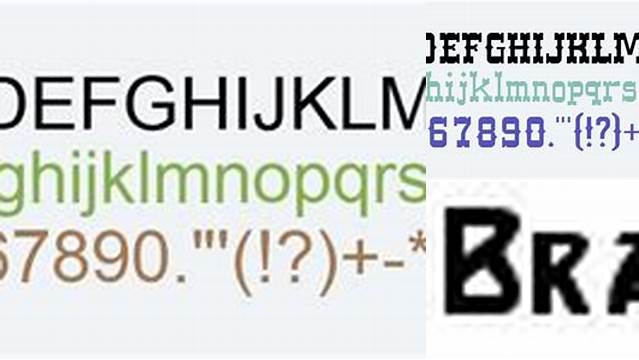
Arial Font: Free Download, Normal, Western, Panose & Default
Hey guys! Are you on the hunt for the perfect font for your next project? Look no further! Today, we're diving deep into the world of Arial, a classic and versatile typeface that's been a staple in design for decades. We'll cover everything from where to find a free download to understanding its technical aspects like Panose numbers. So, buckle up and let's get started!
Arial Font: A Deep Dive
Before we jump into the specifics of downloading and using Arial, let's take a moment to appreciate its history and characteristics. Arial is a sans-serif typeface that's known for its clean lines and excellent readability. It's often used in body text, headlines, and even in digital interfaces. Its versatility makes it a go-to choice for designers and typographers alike. Understanding its background will help you appreciate why it's such a popular choice and how to best utilize it in your projects. So, let's explore the key aspects of Arial font.
Arial Normal Font: The Classic Choice
The Arial Normal font is the standard version that most of us are familiar with. It's the workhorse of the Arial family, offering a balanced and legible design that works well in various contexts. This classic font is a great choice for everything from documents and presentations to websites and marketing materials. When you need a reliable and clean font, Arial Normal is often the first that comes to mind. Its simplicity and clarity make it a universally accepted option. So, let’s discuss the features that make Arial Normal so special.
Understanding Arial Normal Font Characteristics
Arial Normal is characterized by its straightforward design. It has a uniform stroke weight and a slightly condensed appearance, which helps it to fit more text on a page or screen. Its neutral design makes it incredibly versatile, allowing it to blend seamlessly with different design styles. Arial Normal is also highly legible, even at smaller sizes, making it an excellent choice for body text. The font's balanced letterforms and spacing contribute to its overall readability. For example, the lowercase 'a' and 'g' are distinct, and the uppercase letters have a clear, modern look.
Why Arial Normal is a Popular Choice
There are several reasons why Arial Normal remains a popular choice among designers and everyday users. First and foremost, it's readily available on most operating systems, including Windows and macOS. This widespread availability means you can rely on Arial Normal to be displayed correctly on virtually any device. Its clean and simple design also makes it a safe bet for various projects, ensuring that your text is always legible and professional-looking. Furthermore, its familiarity often makes it a comfortable choice for readers, who can easily process the text without distraction. The font's unobtrusive design helps the content take center stage, which is a key consideration for many communication purposes.
Arial Normal vs. Other Fonts
While Arial Normal is a great font, it's worth comparing it to other popular typefaces. One common comparison is with Helvetica, another sans-serif font that shares a similar design aesthetic. While they look alike at first glance, there are subtle differences. Arial has slightly more rounded terminals and a more condensed appearance compared to Helvetica. Arial is often considered a more budget-friendly alternative to Helvetica, which is a commercially licensed font. Another popular sans-serif is Open Sans, known for its open forms and neutral yet friendly appearance. The choice between these fonts often depends on the specific needs and aesthetic goals of the project. For example, Open Sans might be preferred for its contemporary feel, while Arial is chosen for its familiarity and widespread support.
Western Arial Font: Supporting International Characters
When we talk about Western Arial Font, we're referring to the character set it supports. Arial includes a wide range of characters, including those used in Western European languages. This means you can use Arial to write in English, Spanish, French, German, and many other languages without worrying about missing characters or display issues. This broad support makes it a reliable choice for international projects. It ensures consistency across different languages and regions, which is crucial for global communication. So, let's delve into the importance of this international character support.
The Importance of Character Set Support
Character set support is crucial for ensuring that your text is displayed correctly, regardless of the language it's written in. A font that doesn't support the necessary characters will display strange symbols or boxes instead of the intended letters or punctuation marks. This can lead to miscommunication and a lack of professionalism. Arial's extensive character set ensures that you can confidently create content in multiple languages. For example, languages like Spanish and French use accented characters, while German includes the ß character. Arial includes all these and more, making it a versatile choice for multilingual content.
How Arial Handles Western Characters
Arial handles Western characters by including glyphs (the visual representation of a character) for each letter, diacritic mark, and punctuation symbol commonly used in Western European languages. This comprehensive coverage means you can use Arial to write in most Western languages without any issues. The font's design also ensures that these characters are consistent with the overall style of Arial, maintaining a cohesive and professional look. The attention to detail in the design of these characters is a testament to the font's versatility and utility in various contexts.
Using Arial for Multilingual Projects
If you're working on a multilingual project, Arial is an excellent choice. Its broad character support means you won't need to hunt for different fonts to accommodate various languages. This simplifies your workflow and ensures consistency across your entire project. Whether you're creating a website, a brochure, or a presentation, Arial can handle the text in multiple languages with ease. This is particularly beneficial for companies and organizations that communicate with a global audience. Using a font like Arial that supports a wide range of characters helps to ensure that your message is clear and consistent, regardless of the reader's language.